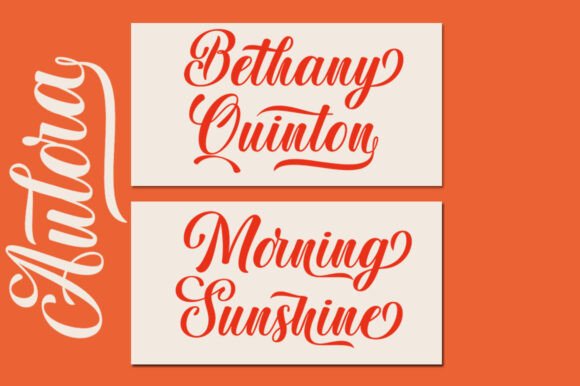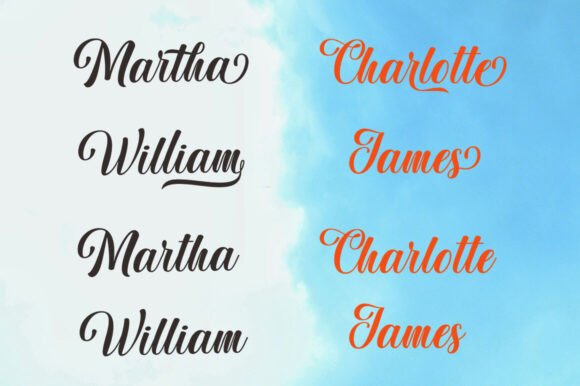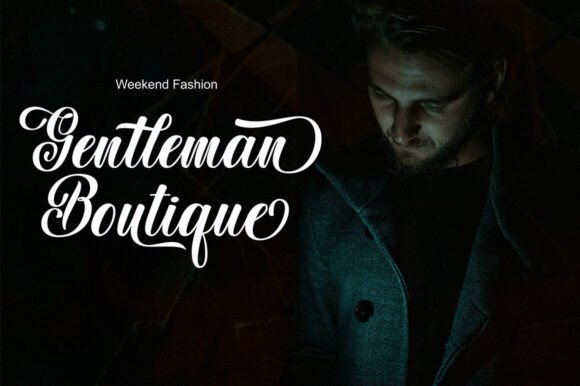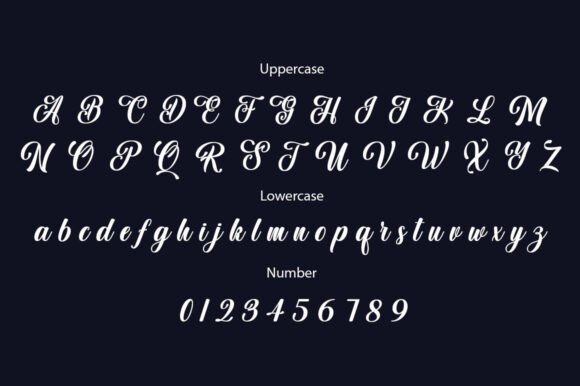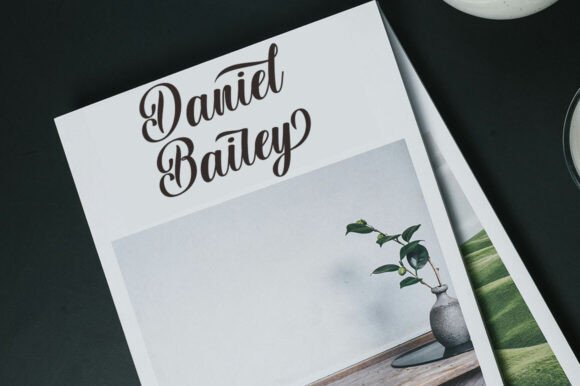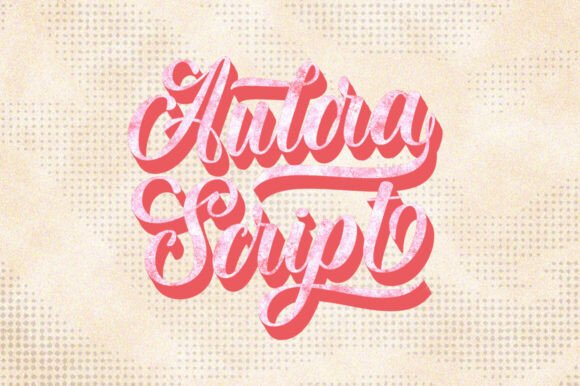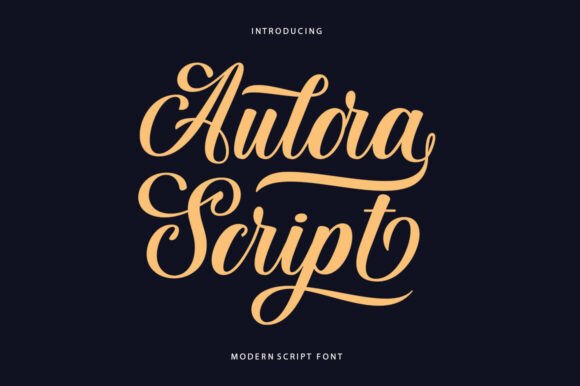
Aulora Script Font: Elevate Your Designs with Elegance and Sophistication
In the world of typography, a well-crafted font can make all the difference in elevating your design from ordinary to extraordinary. Aulora Script, a stunning calligraphy script font, is here to bring style and elegance to your creative projects. With its beautiful alternative characters and unique blend of copper calligraphy and hand-lettering styles, Aulora Script is the perfect choice for designers and crafters looking to add a touch of sophistication to their work.
The Inspiration Behind Aulora Script
Aulora Script is a masterful blend of traditional copper calligraphy and modern hand-lettering techniques. This fusion of styles results in a font that exudes a sense of classic elegance, while still feeling fresh and contemporary. The font’s creator aimed to craft a typeface that would be both beautiful and functional, with a focus on readability and versatility.
Key Features of Aulora Script
- Beautiful Alternative Characters: Aulora Script comes with a range of alternative characters, allowing you to add a touch of personality to your designs.
- Clean and Readable: The font’s clean lines and classic style make it highly readable, even at smaller sizes.
- Feminine and Sensual: Aulora Script’s elegant curves and flowing lines evoke a sense of femininity and sensuality, making it perfect for designs that require a touch of glamour.
- Simple and Versatile: Despite its elegant appearance, Aulora Script is a simple and versatile font that can be used in a wide range of design applications.
Design Applications for Aulora Script
Aulora Script’s classic style and elegant appearance make it suitable for a variety of design applications, including:
- Invitations: Whether it’s a wedding invitation, birthday party invite, or formal gala invitation, Aulora Script is the perfect choice for adding a touch of elegance.
- Labels and Packaging: Aulora Script’s clean lines and readability make it an excellent choice for product labels, packaging, and branding.
- Menus and Stationery: Add a touch of sophistication to your restaurant menus, letterheads, and stationery with Aulora Script.
- Logos and Branding: Aulora Script’s unique blend of copper calligraphy and hand-lettering styles makes it an excellent choice for logos, trademarks, and brand identities.
- Fashion and Beauty: Aulora Script’s feminine and sensual appearance makes it perfect for fashion and beauty brands, including makeup and skincare products.
- Romantic Novels and Magazines: Aulora Script’s elegant and classic style makes it an excellent choice for romantic novels, magazines, and other literary publications.
- Greeting and Wedding Cards: Add a touch of elegance to your greeting and wedding cards with Aulora Script.
- Experiment with Alternative Characters: Take advantage of Aulora Script’s beautiful alternative characters to add a touch of personality to your designs.
- Use for Headings and Titles: Aulora Script’s elegant appearance makes it perfect for headings and titles. Use it to add a touch of sophistication to your designs.
| Font Name | Aulora Script Font |
Aulora Script is a stunning calligraphy script font that is sure to elevate your designs with its elegance and sophistication. With its beautiful alternative characters, clean lines, and classic style, Aulora Script is the perfect choice for designers and crafters looking to add a touch of glamour to their work. Whether you’re designing invitations, labels, menus, or logos, Aulora Script is a versatile font that is sure to impress.